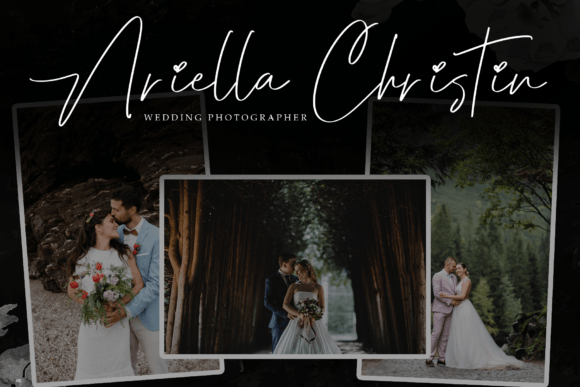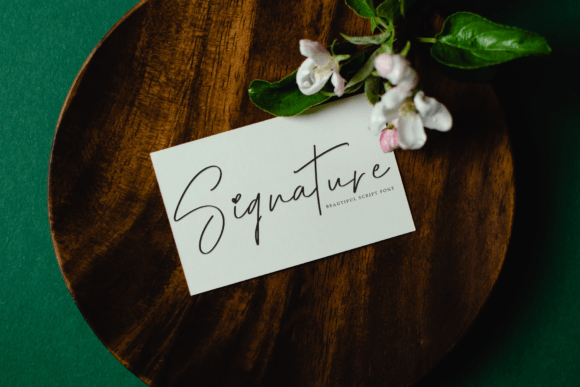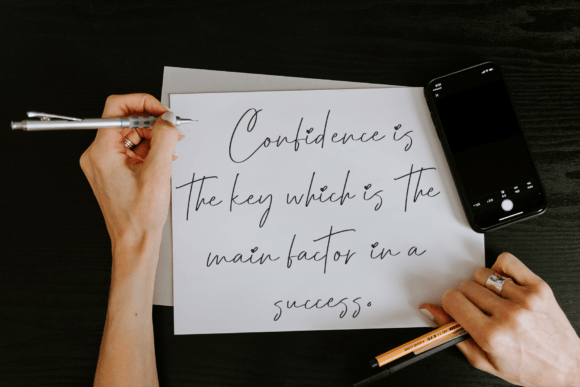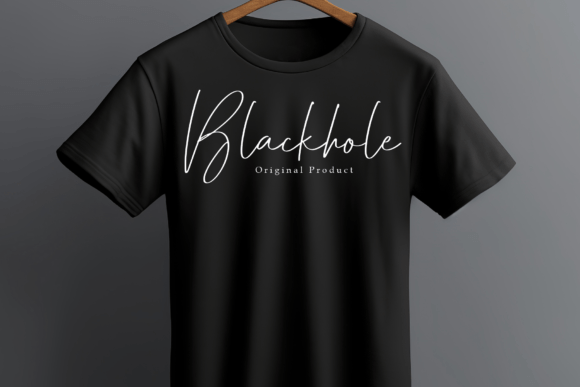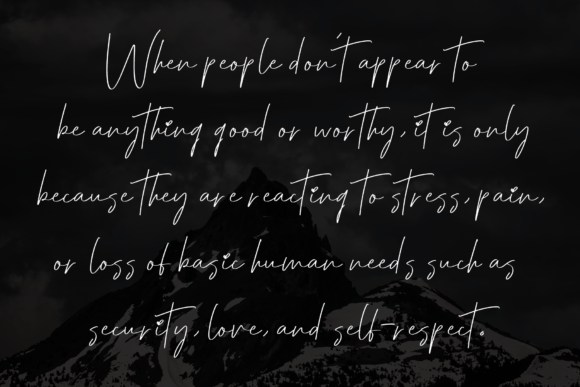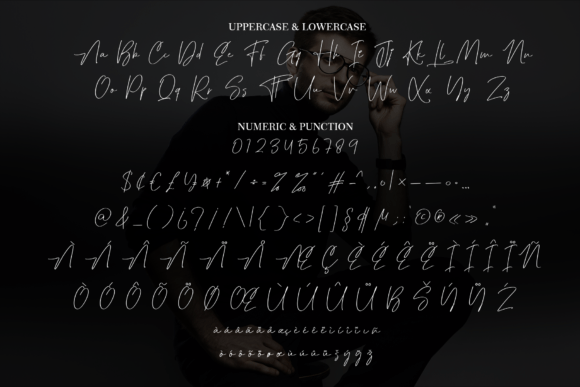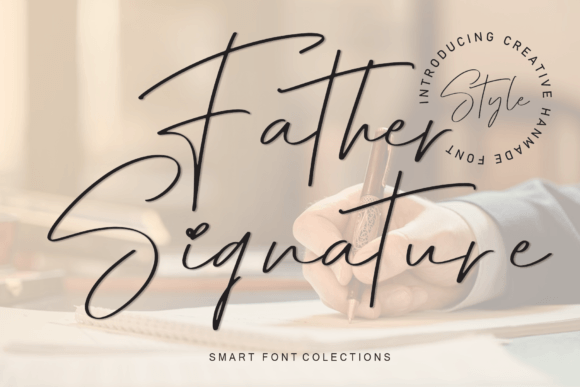
Father Signature Font: Elevate Your Designs with Elegance and Sophistication
In the world of typography, a signature font can make all the difference in creating a lasting impression. For those seeking a font that embodies elegance, sophistication, and a touch of refinement, Father Signature is an exceptional choice. This beautiful font is designed to capture the essence of a handwritten signature, bringing a sense of authority and professionalism to any design.
The Characteristics of Father Signature Font
Father Signature is a meticulously crafted font that showcases graceful curves and fluid strokes. Its elegant design makes it perfect for a variety of applications, including personal branding, business logos, and adding a personal touch to projects. The font’s sophisticated appearance exudes confidence and prestige, making it an ideal choice for designers and crafters looking to elevate their work.
Timeless Appeal and Attention to Detail
One of the standout features of Father Signature is its timeless appeal. Unlike trendy fonts that may quickly become outdated, this font’s classic design ensures it will remain relevant for years to come. The attention to detail in Father Signature is also noteworthy, with each letter carefully crafted to create a seamless and harmonious flow. This level of detail makes it an excellent choice for designers who value precision and quality.
Father Signature is a versatile font that can be used in a wide range of design projects. Whether you’re a graphic designer working on a client’s branding, a crafter creating handmade products, or an entrepreneur building your personal brand, this font is an excellent choice. Its elegant appearance makes it suitable for:
- Personal branding: Create a lasting impression with a sophisticated font that reflects your personality and style.
- Business logos: Elevate your company’s image with a font that exudes professionalism and confidence.
- Stationery and invitations: Add a touch of refinement to your stationery, invitations, and other paper goods.
- Digital products: Use Father Signature to create visually appealing digital products, such as ebooks, courses, and more.
Why Choose Father Signature Font?
With so many fonts available, why choose Father Signature? Here are just a few reasons:
- Elegance and sophistication: Father Signature is a font that truly stands out from the crowd, offering a level of elegance and sophistication that’s hard to find.
- Versatility: This font can be used in a wide range of design projects, from personal branding to business logos and more.
- Timeless appeal: Unlike trendy fonts, Father Signature’s classic design ensures it will remain relevant for years to come.
- Attention to detail: Each letter is carefully crafted to create a seamless and harmonious flow, making it perfect for designers who value precision and quality.
In conclusion, Father Signature font is an exceptional choice for designers and crafters seeking a elegant and sophisticated font that captures the essence of a handwritten signature. With its timeless appeal, attention to detail, and versatility, this font is perfect for a wide range of design projects. Whether you’re looking to elevate your personal brand, create a stunning business logo, or add a touch of refinement to your projects, Father Signature is an excellent choice.